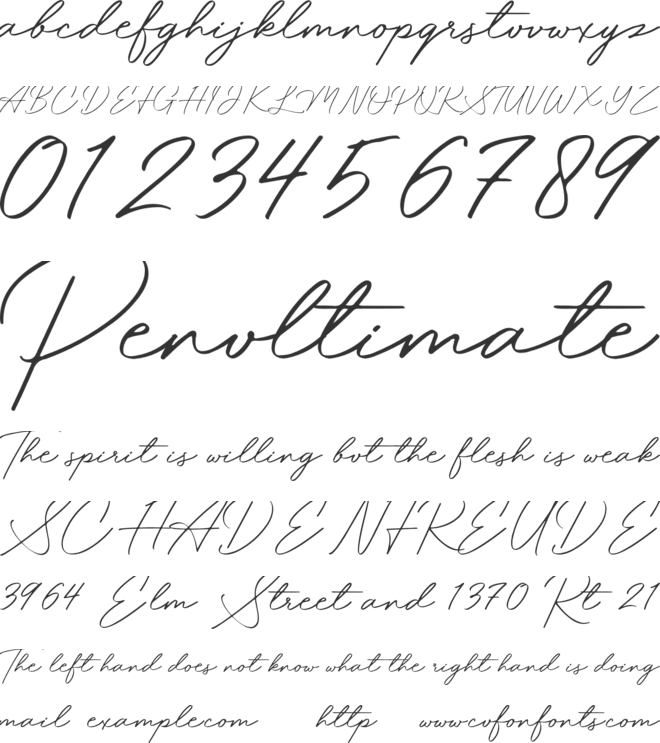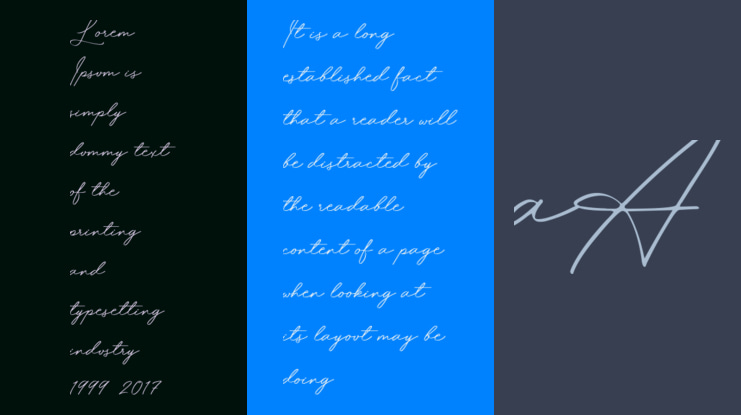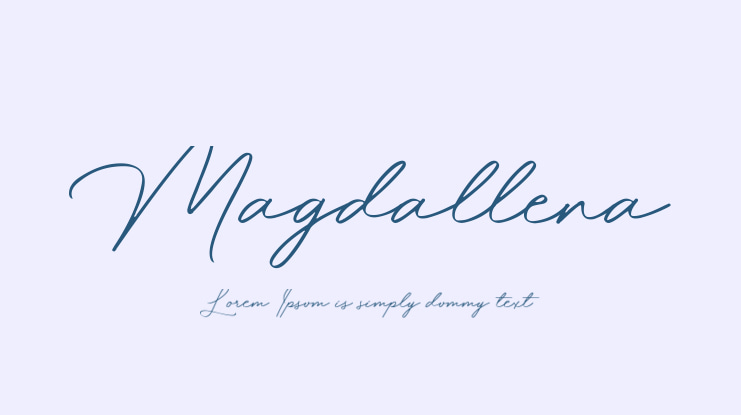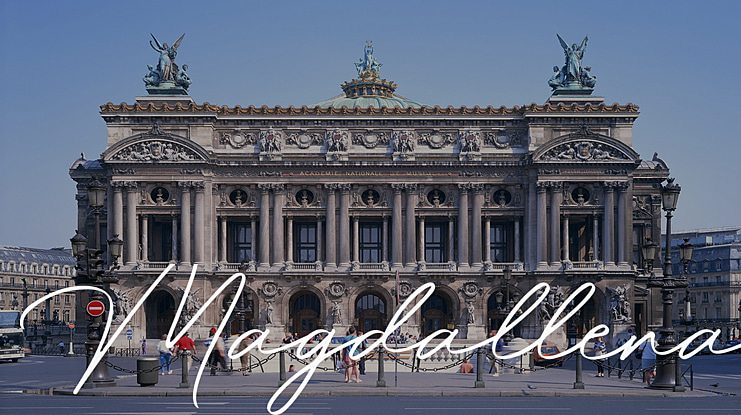
Magdallena Font
Jefri Dwi Alfatah
This is our newest product called Magdallena. Magdallena is a stunning signature font with a cool twist. Get inspired by its modern simplicity!
This font is suitable for use on business cards, weddings, t-shirt designs, logos, magazines, quotes, fashion, watermarks, invitations, signatures.
Magdallena font preview
Magdallena Regular font
Bluestype Studio